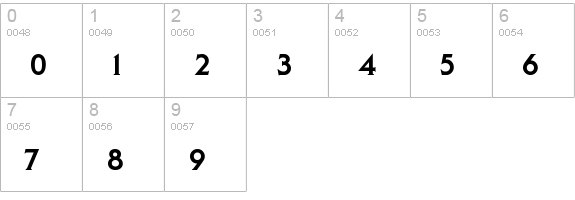
LibertySCD Font Details
LibertySCD font exudes a sense of freedom and creativity with its elegant design and stylish curves. Its timeless appeal makes it a versatile choice for a wide range of projects, from branding to editorial design. The flowing lines and distinctive letterforms of LibertySCD font add a touch of sophistication to any text, making it a perfect choice for those seeking a modern yet classic look. Best of all, LibertySCD font is available for free download at FontsMarket.com, allowing designers and creatives to access this stunning typeface without any cost. Embrace the freedom of expression and elevate your designs with the unique charm of LibertySCD font.